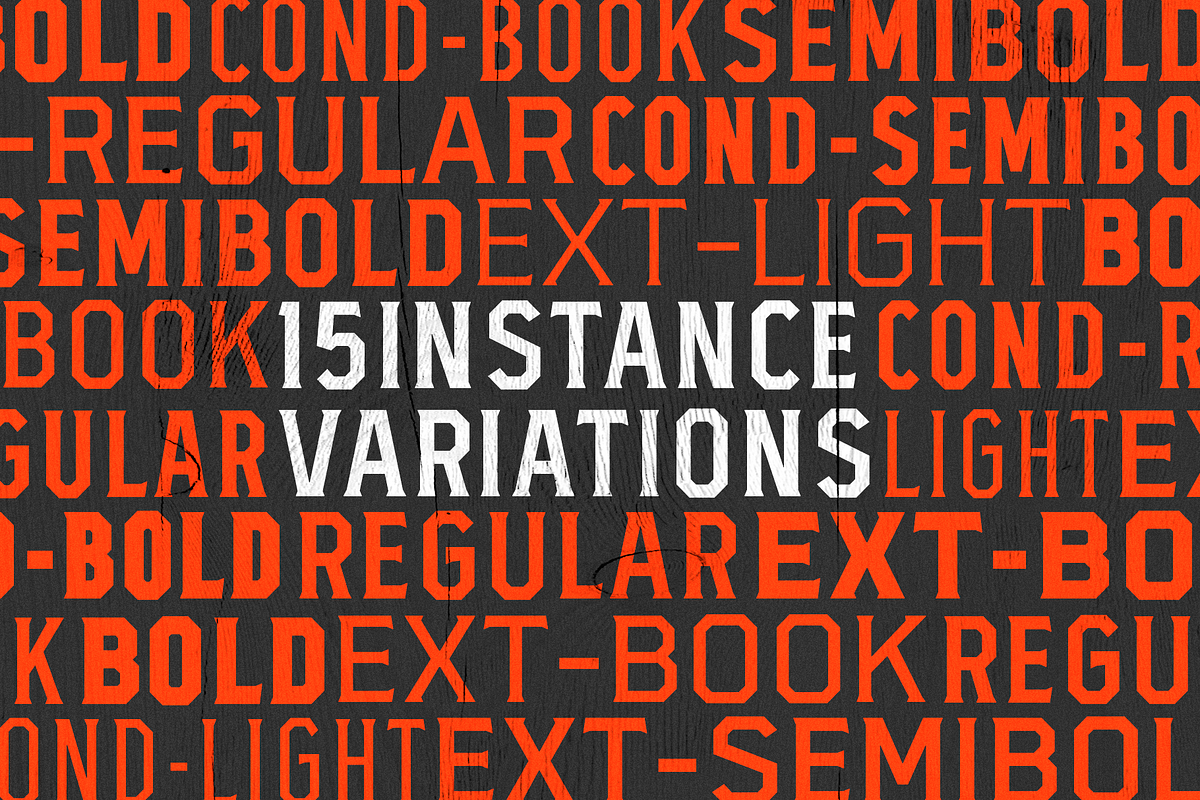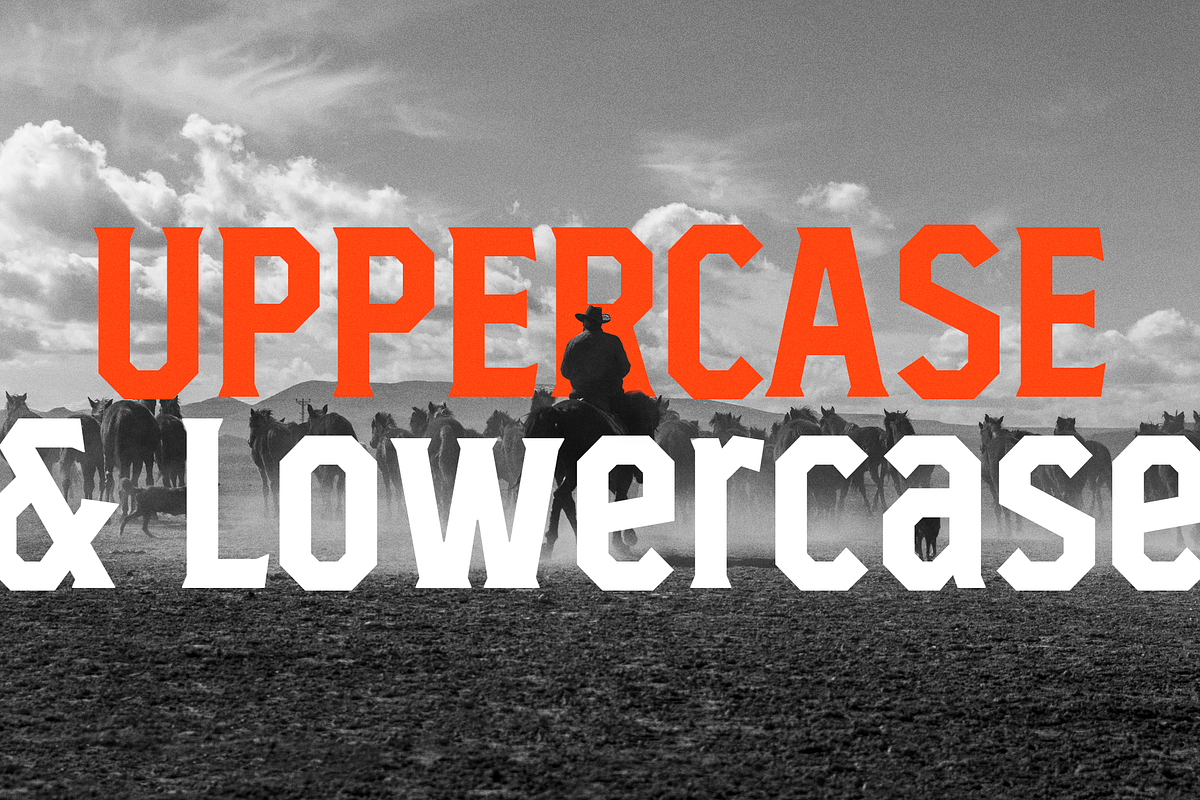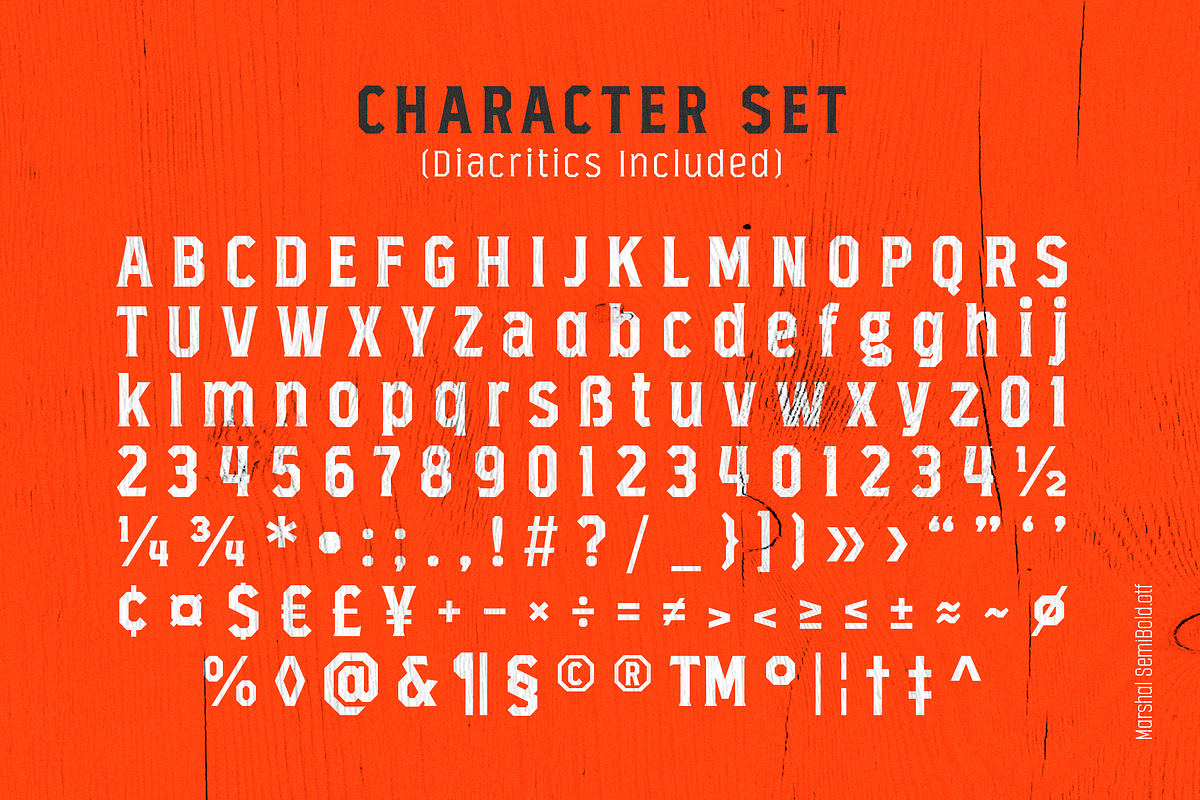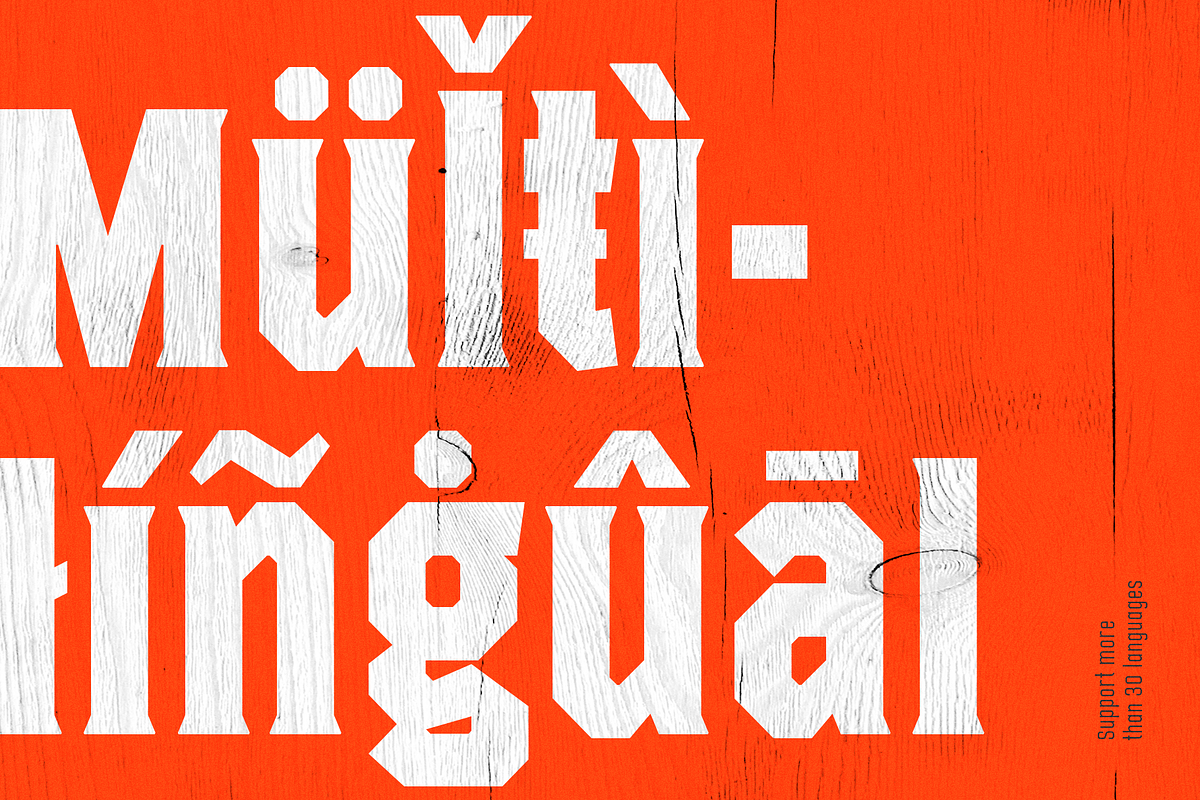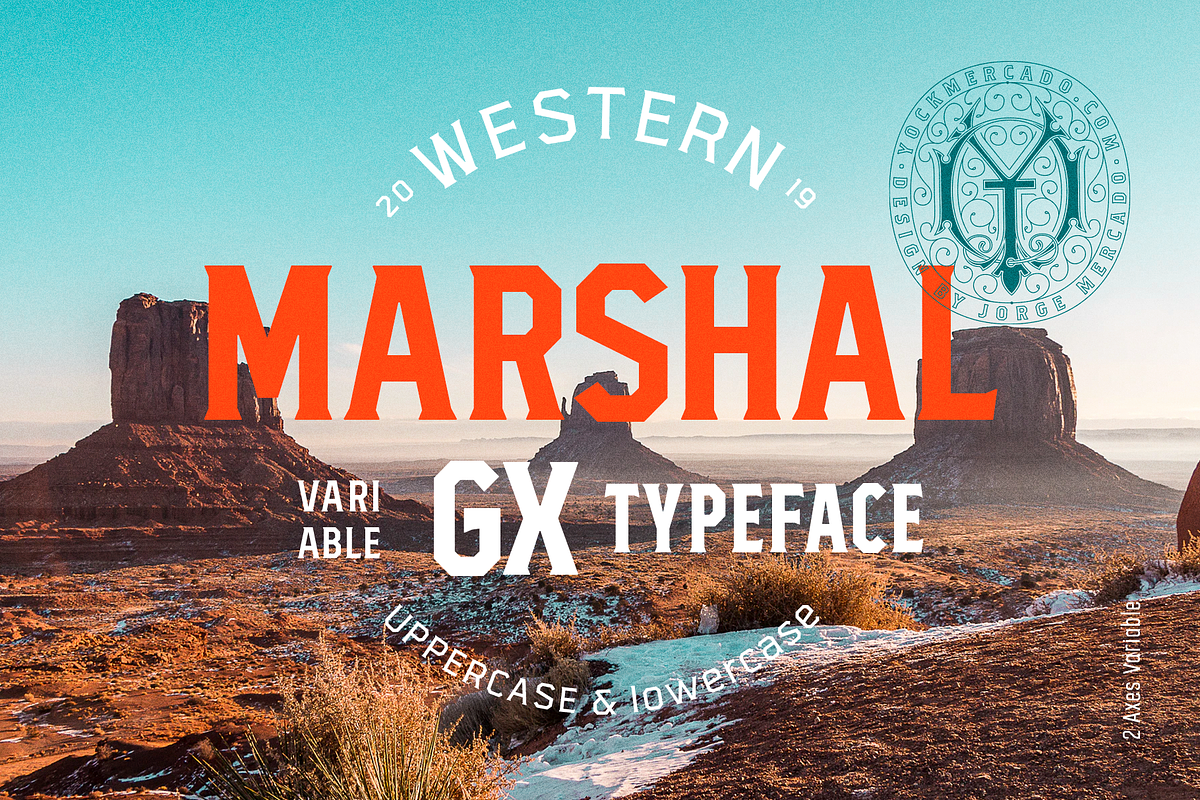
Marshal Variable Typeface
Marshal is a variable typeface designed by Jorge Mercado, inspired in classic american western movies, This font has been designed with 6 masters and 15 instances that result in 2 axes variable type family.
We design uppercase and lowercase characters and a couple of stylistic alternatives for the letter "a" and "g", doing more adaptable Dalton to all uses that you need.
Marshal Variable Typeface by YockMercado fits naturally into Branding, posters, packaging, typography.